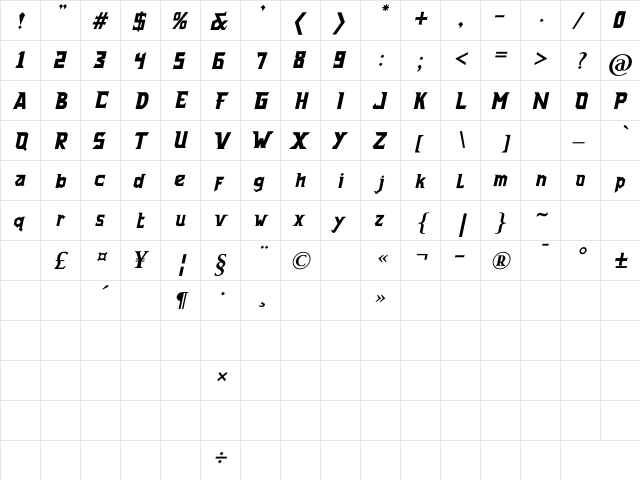
Forgotten Italic Italic
Design Context for Forgotten Italic Typeface
Forgotten Italic takes a measured approach to typography — its balanced proportions and neutral character make it a reliable workhorse for both digital and print work. The slanted form adds forward momentum and visual energy.
Pro Tip: Use Forgotten Italic for emphasis, pull quotes, and subheadings where its slanted energy can add rhythm to the layout.